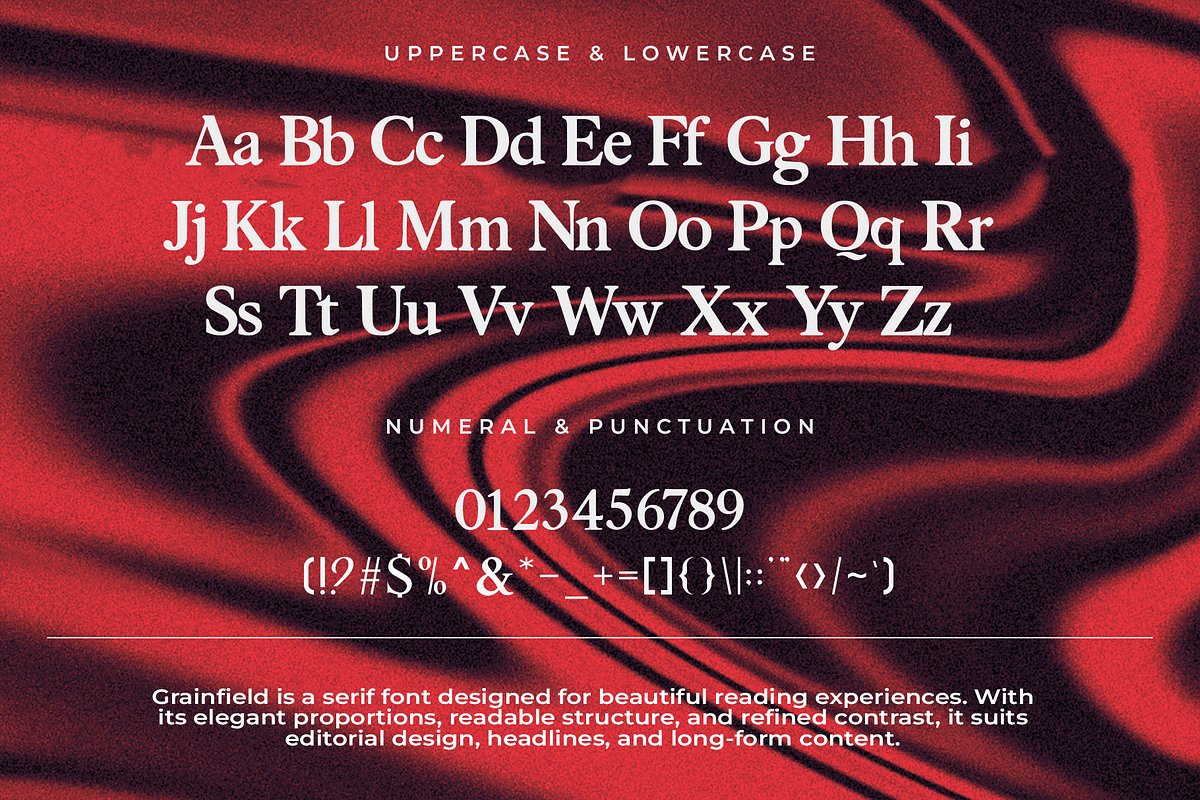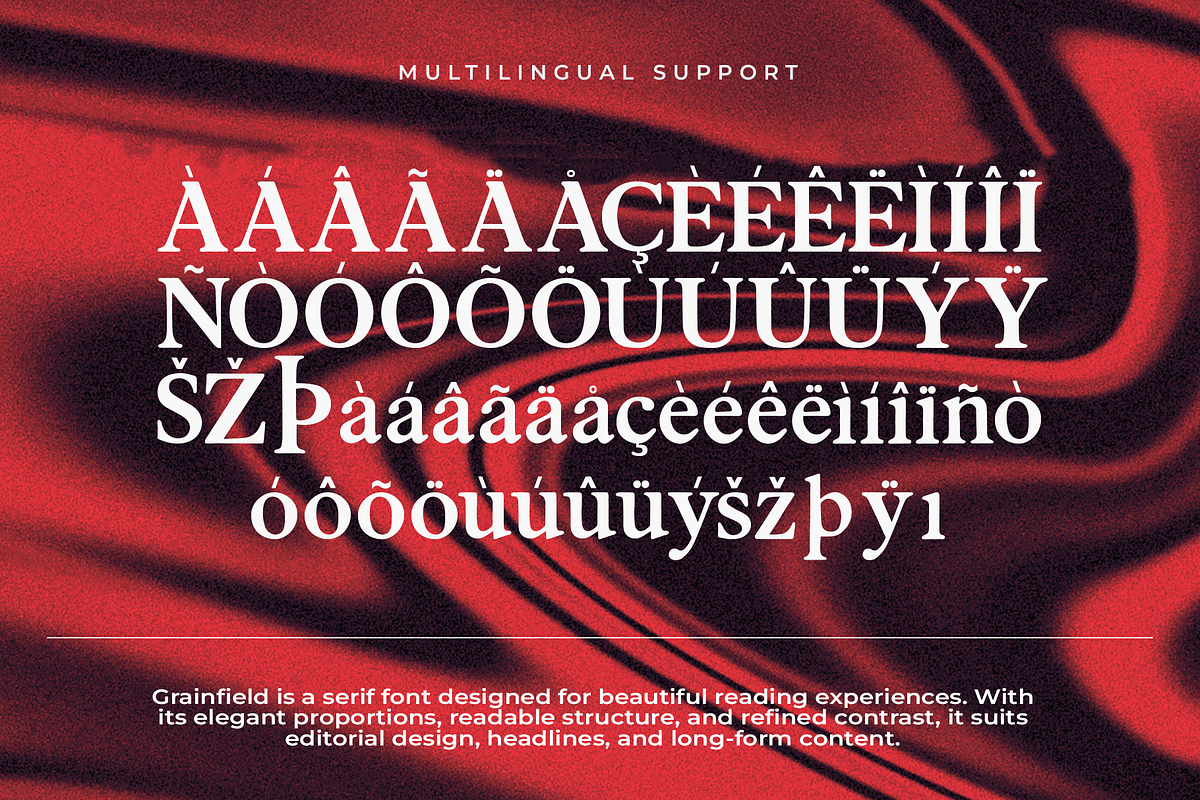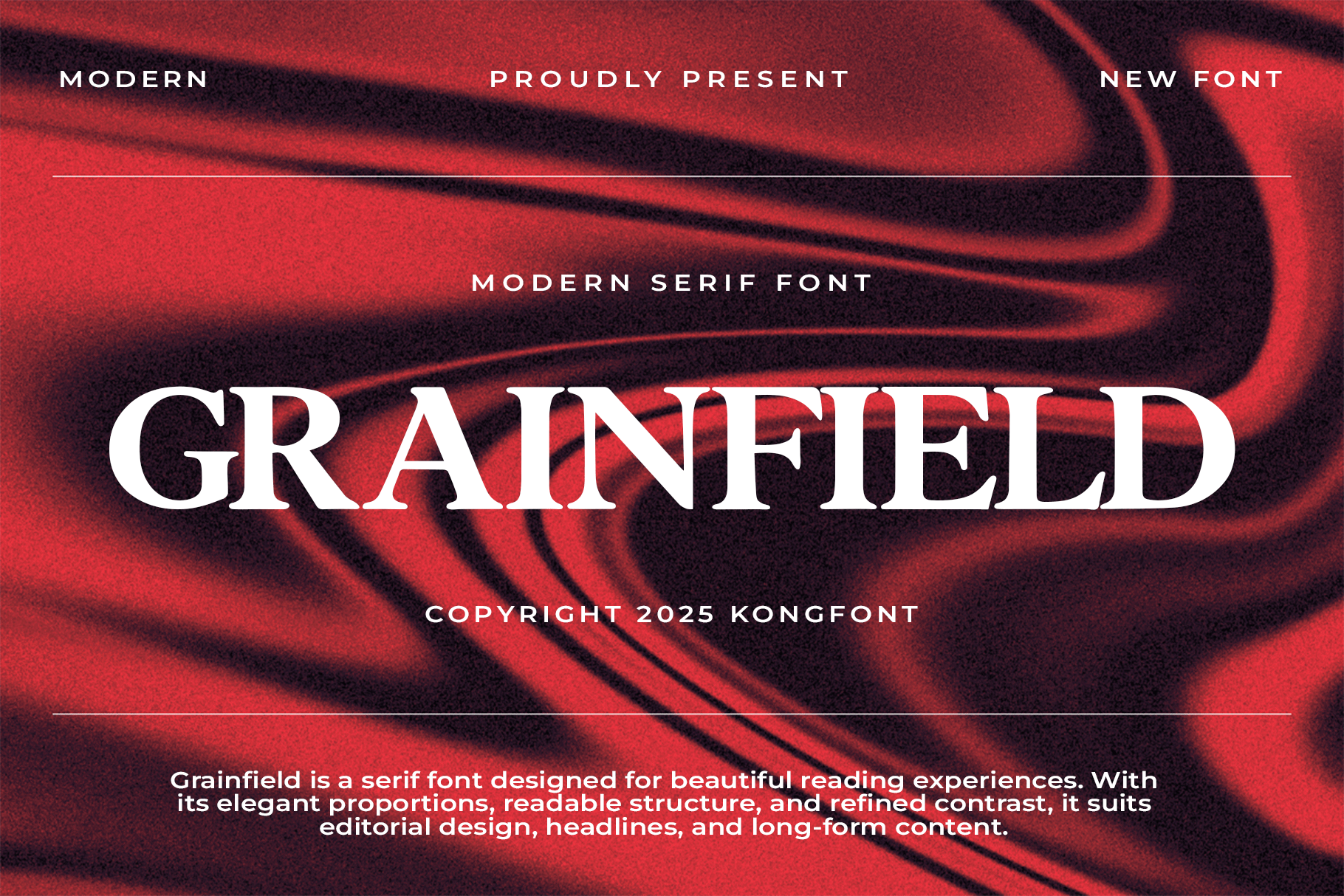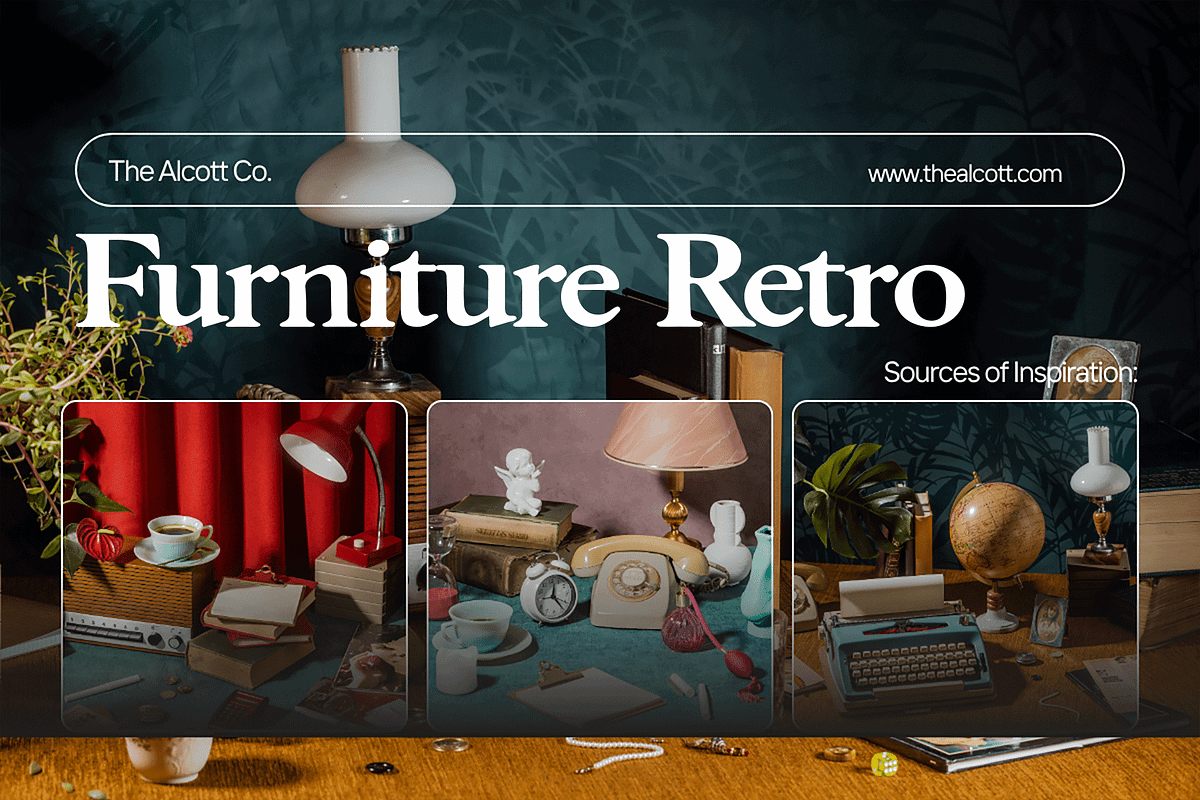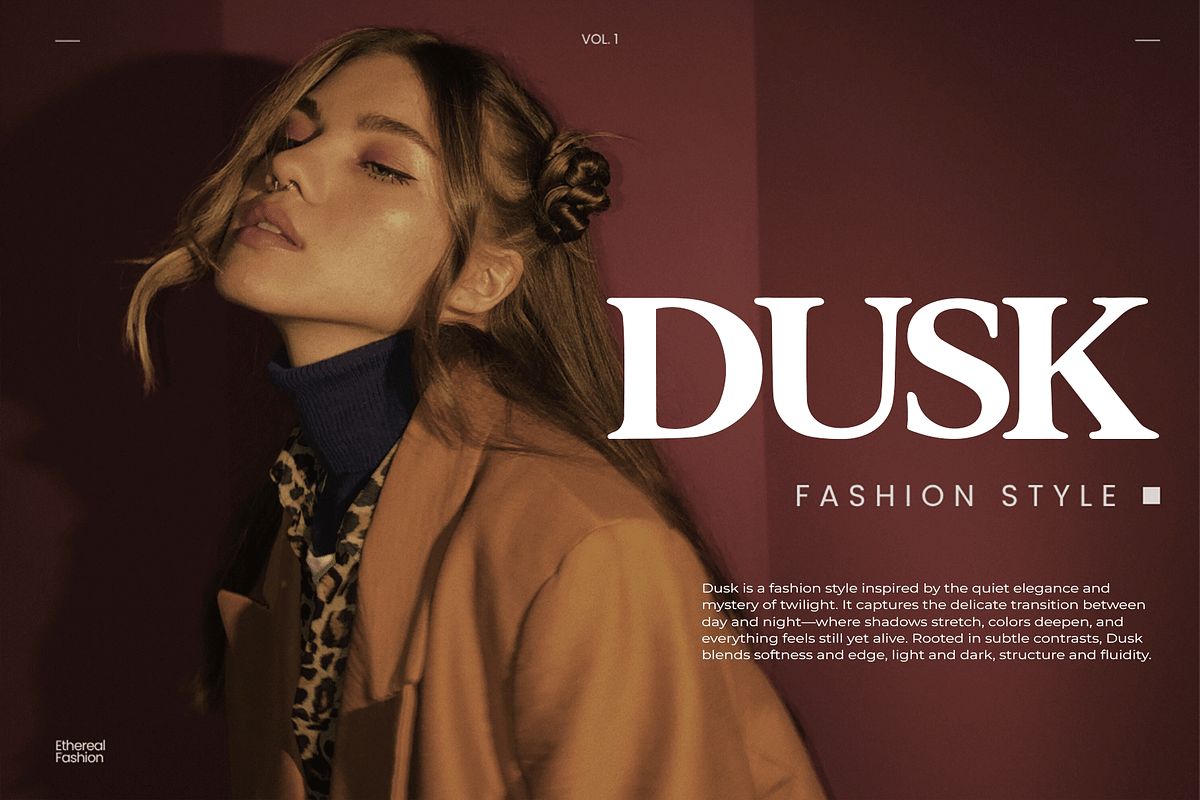
Grainfield – Modern Serif Font
Grainfield is a modern serif font that blends rustic charm with refined sophistication. Designed with smooth curves, balanced contrast, and elegant serifs, this typeface brings a sense of warmth and professionalism to your design projects.
Perfect for branding, editorial layouts, packaging, wedding invitations, and websites, Grainfield offers timeless style with a modern twist. Its clean lines and graceful structure make it both highly legible and visually appealing, whether in headlines or body text.
Complete with uppercase and lowercase letters, numerals, punctuation, ligatures, and multilingual support, Grainfield is a versatile serif font that’s ready to elevate any creative work.
Let your typography bloom with Grainfield where elegance grows naturally.